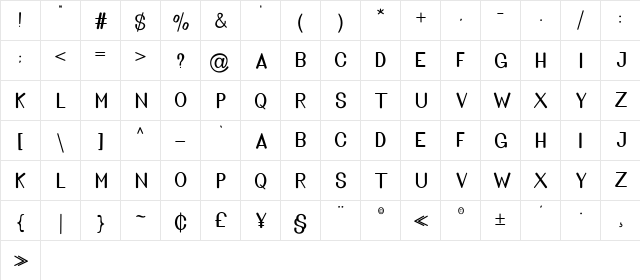
Golden Bridge Sans Regular
| Foundry | Fajriadi |
| Designer | Fajriadi |
Design Context for Golden Bridge Sans Typeface
Golden Bridge Sans takes a measured approach to typography — its balanced proportions and neutral character make it a reliable workhorse for both digital and print work.